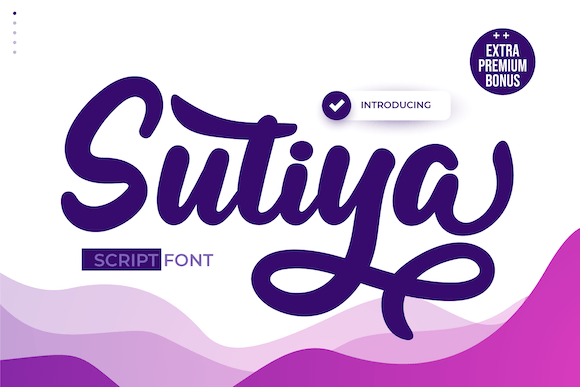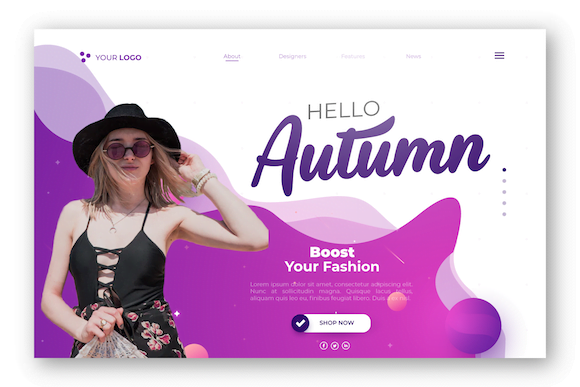
- Sutiya – Handwritten Script Font
Bring your words to life with Sutiya, a delightful Handwritten Script Font that captures the beauty of natural handwriting. Featuring smooth, sweeping strokes and gentle curves, Sutiya exudes an effortless elegance that’s perfect for greeting cards, wedding invitations, personal branding, and social media graphics. The graceful, airy style of this font adds a touch of refinement, making your designs look both polished and personal.
Sutiya’s versatility shines across various design projects, blending seamlessly into both casual and formal aesthetics. Whether you’re working on romantic invitations or stylish lifestyle branding, this font adds a layer of authenticity and warmth, making every project feel unique and heartfelt.